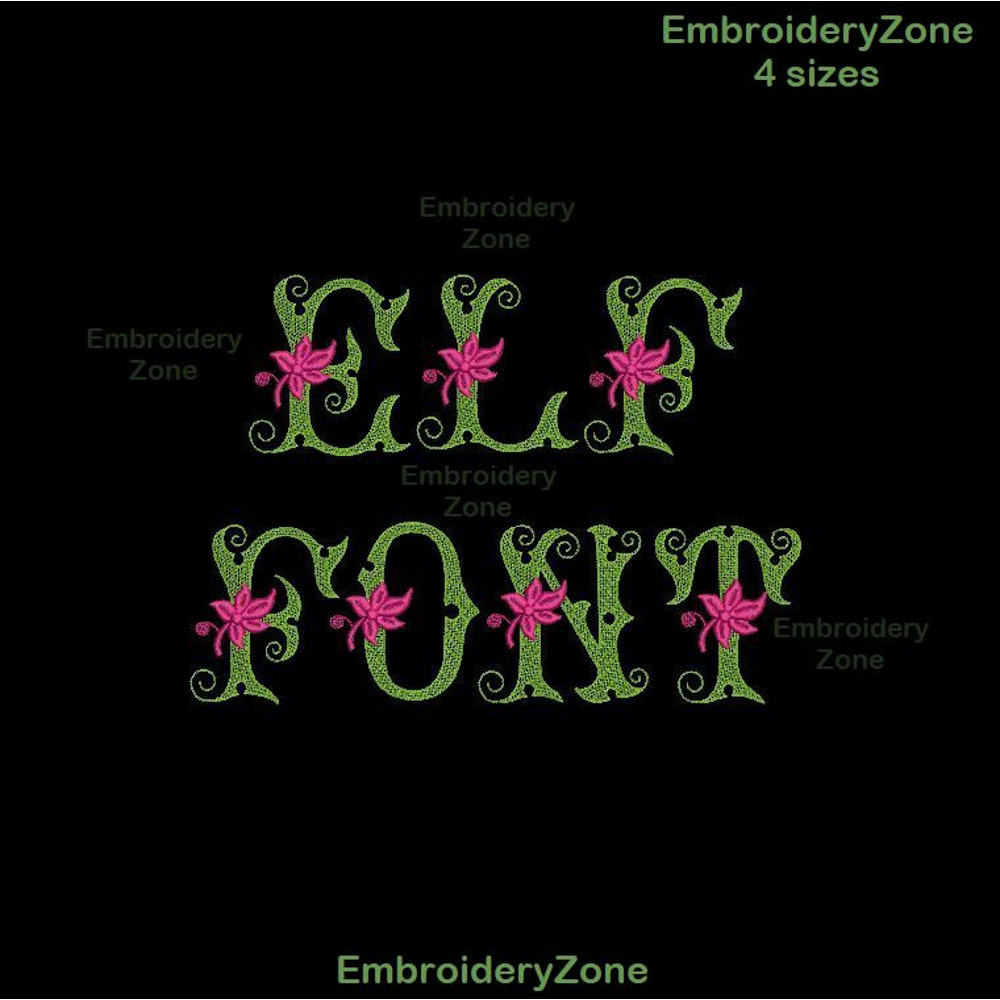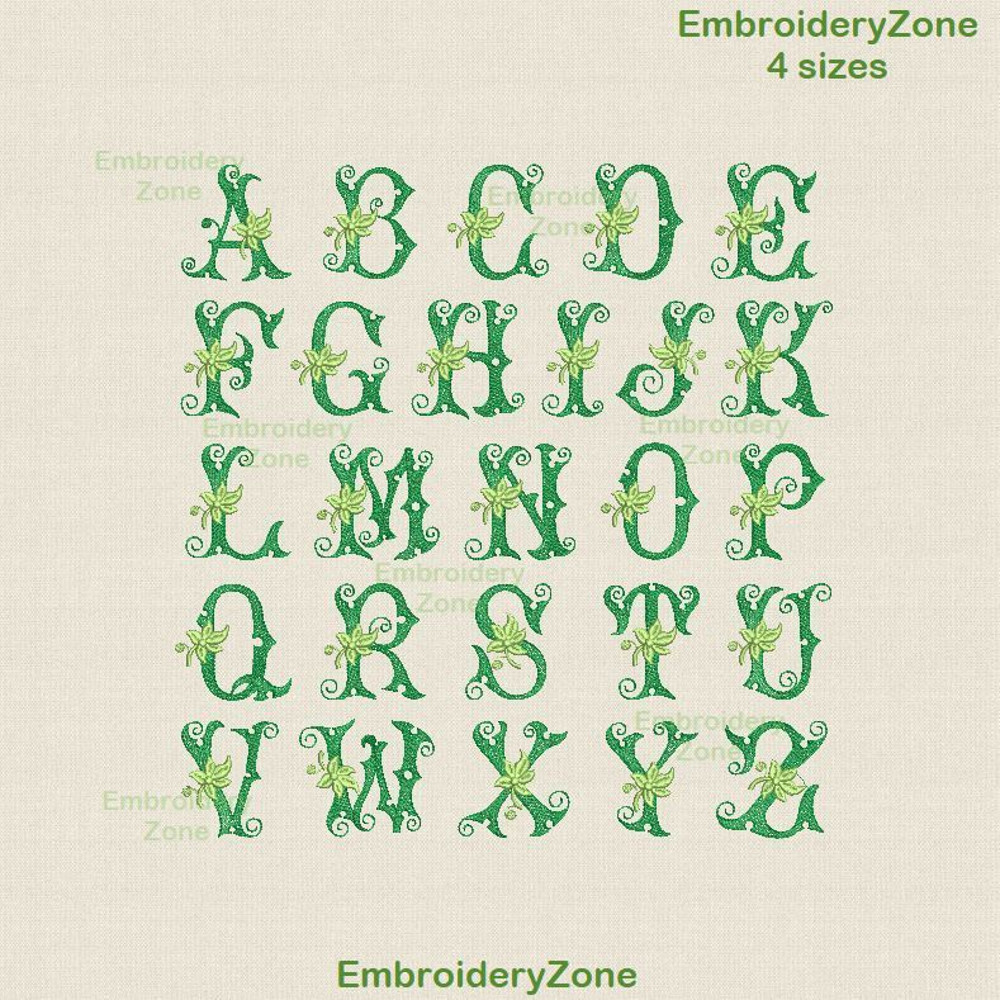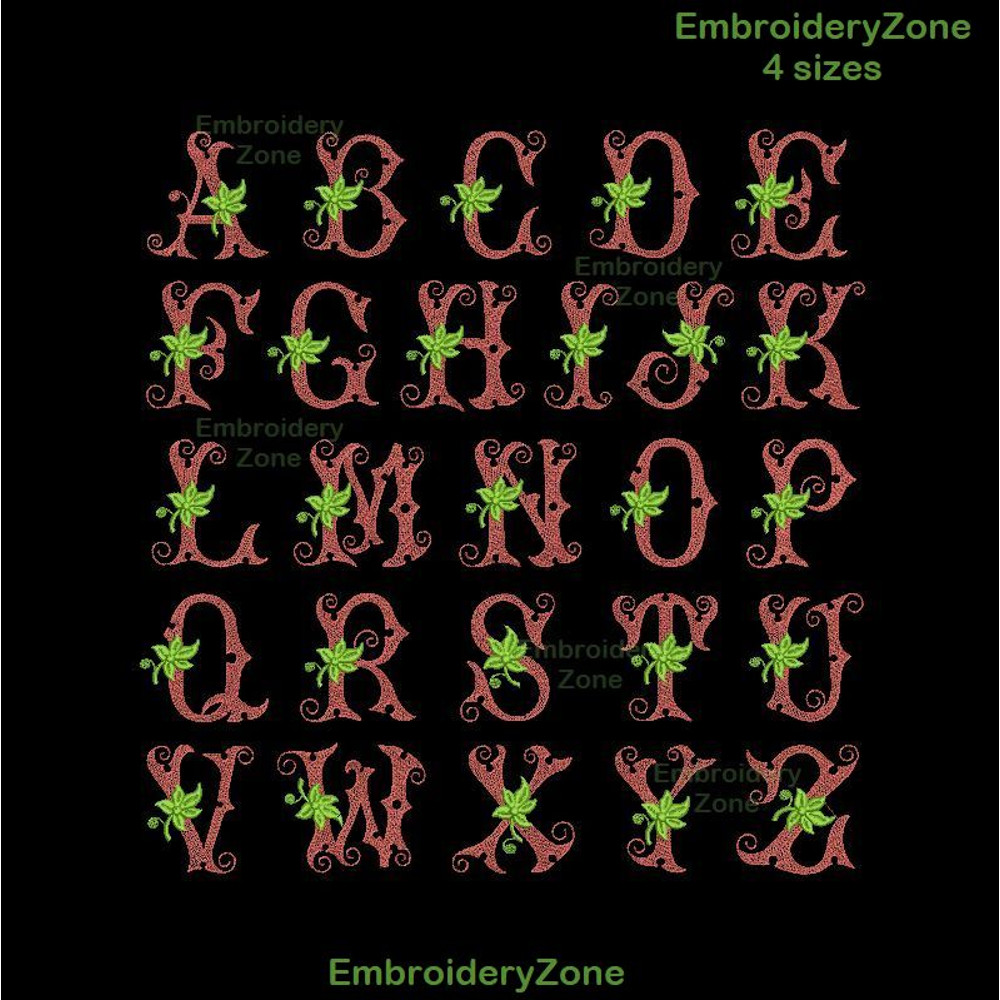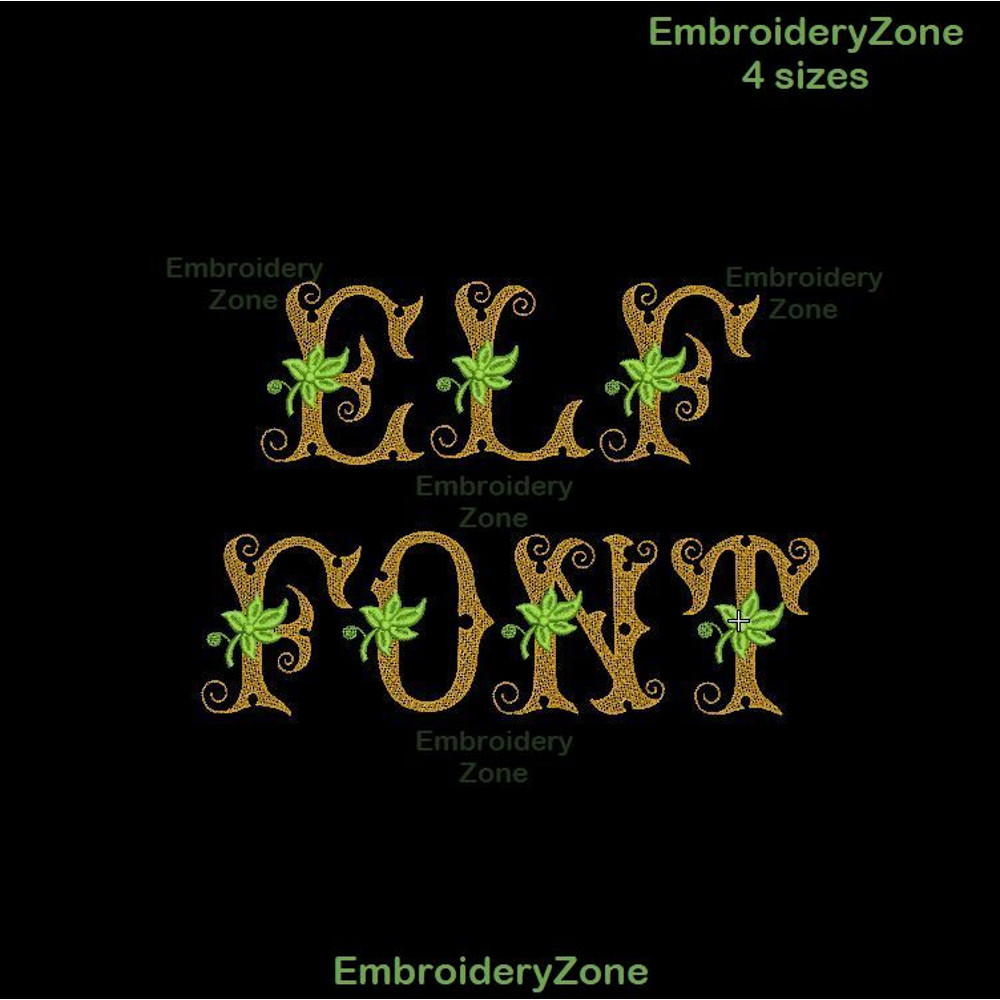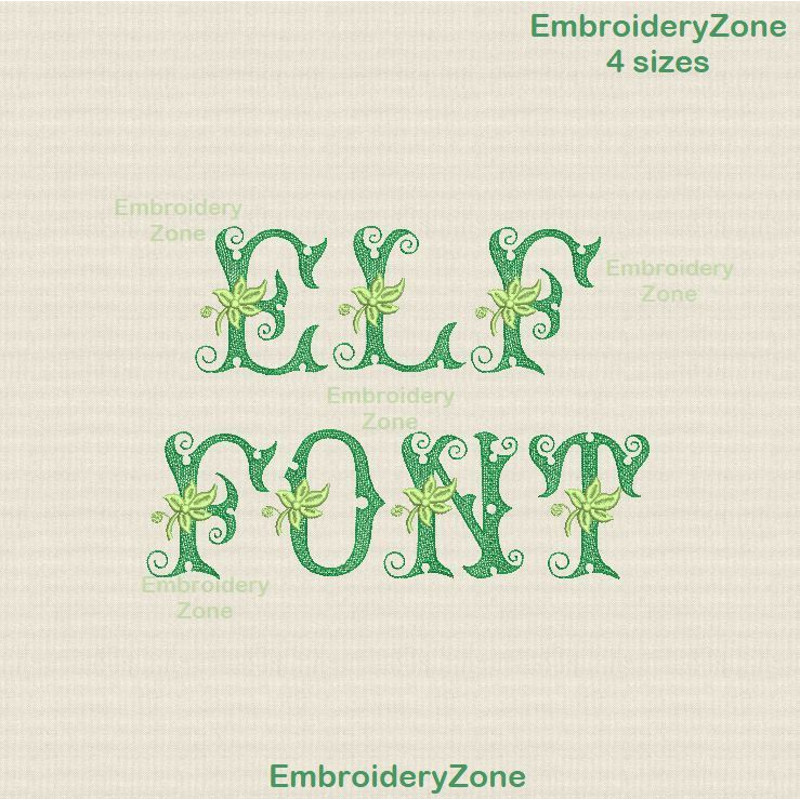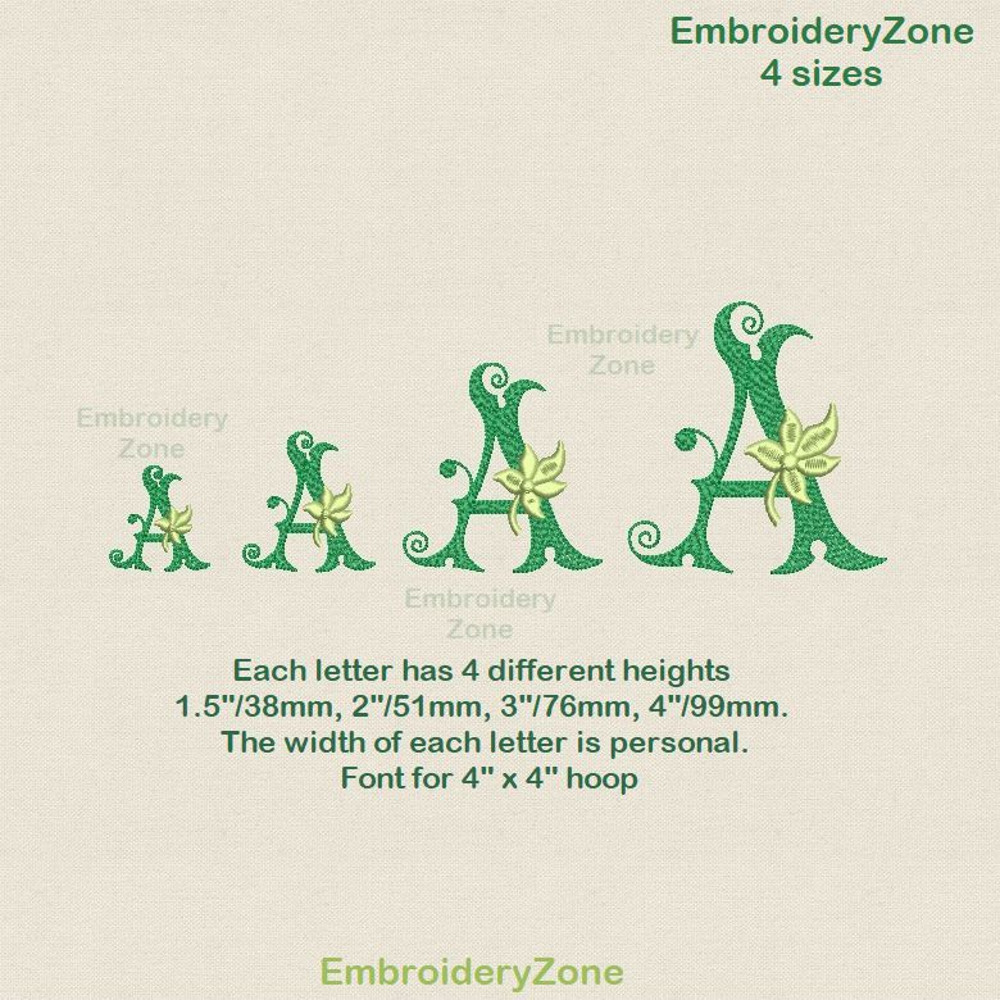
Elf font with leaf machine embroidery designs, 26 monogram with leaf embroidery patterns, floral alphabet embroidery
Elf font with leaf machine embroidery designs, 26 monogram with leaf embroidery patterns, floral alphabet embroidery design for initial, 4 sizes. Each letter has 4 different heights 1.5"/38mm, 2"/51mm, 3"/76mm, 4"/99mm. The width of each letter is personal. Font for 4" x 4" hoop